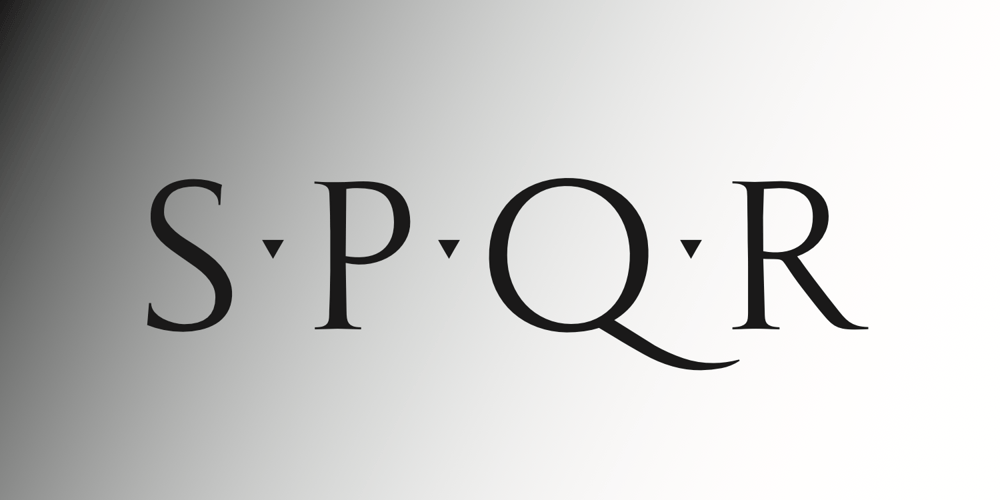
Antiqva
Antiqva font
Antiqva Font Family was designed by Finn Sködt and published by Ultramarin. Antiqva contains 1 styles and family package options. An alphabet based on classic Roman letterforms. As a model for our typography since ancient times, Roman stone inscription remains the starting point for all Latin letterforms. Working with these classical letters is an eternal dance for the graphic artist. The constant drawing and refinement of detail. A typographical relationship for ever.